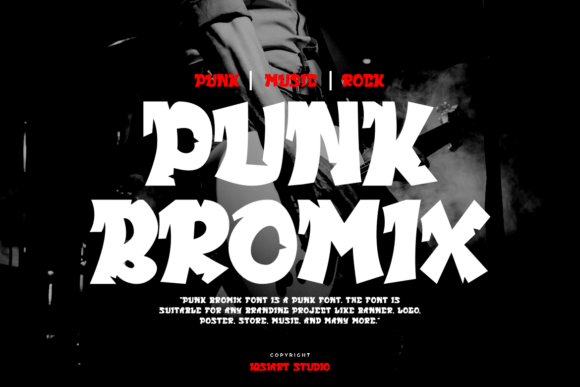
Punk Bromix Font: Unleashing Raw Energy and Wild Style
In the realm of typography, few fonts capture the essence of rebellion and unfiltered attitude as effectively as the Punk Bromix Font. Designed to embody the spirit of punk culture, this typeface is characterized by its jagged edges and bold, rebellious forms. It’s a font that screams to be noticed, making it an ideal choice for punk-themed projects, music posters, and edgy streetwear branding.
The Essence of Punk Bromix
Punk Bromix is more than just a font; it’s a statement. It’s a reflection of the underground culture that thrives on raw energy, defiance, and a dash of chaos. This typeface is meticulously crafted to convey a sense of urgency and rebellion, resonating with designers and audiences who are drawn to the unapologetic and the bold.
An example of Punk Bromix in use, showcasing its bold and jagged edges.
Design Characteristics
The Punk Bromix Font is distinguished by several key design characteristics:
- Jagged Edges: The font’s edges are intentionally rough and jagged, giving it a DIY aesthetic reminiscent of punk’s anti-establishment ethos.
- Bold and Rebellious Forms: The letters are thick and imposing, exuding a sense of strength and defiance.
- Underground Culture: The font is deeply rooted in the punk and street culture, making it perfect for projects that aim to capture this vibe.
Applications of Punk Bromix
Given its unique characteristics, Punk Bromix finds its application in various creative projects:
- Punk-Themed Projects: Whether it’s a logo for a punk band, a flyer for a music event, or branding for a punk clothing line, this font is tailor-made for projects that celebrate the punk ethos.
- Music Posters: The bold and attention-grabbing nature of Punk Bromix makes it an excellent choice for music posters, especially for concerts and festivals with a punk or alternative lineup.
- Edgy Streetwear Branding: For brands looking to make a bold statement and appeal to a demographic that values individuality and rebellion, Punk Bromix can be a powerful tool.
Why Choose Punk Bromix?
In a sea of fonts that play it safe, Punk Bromix stands out for several reasons:
- Uniqueness: Its distinctive look ensures that your project won’t blend in; it’ll stand out with a bold statement.
- Attitude: The font embodies the attitude and spirit of punk culture, allowing designers to infuse their work with an unfiltered edge.
- Versatility: While highly specialized, Punk Bromix can be adapted across various mediums, from digital platforms to print.
Tips for Using Punk Bromix Effectively
To maximize the impact of Punk Bromix, consider the following tips:
- Pair with Contrasts: Combine Punk Bromix with simpler fonts to create visual contrast and hierarchy in your design.
- Use Bold Colors: The font’s bold nature pairs well with vibrant and bold colors often associated with punk culture.
- Experiment with Textures: Adding textures or gradients can enhance the font’s jagged, raw feel, adding another layer of depth to your design.
Punk Bromix Font is a powerful tool for designers looking to inject their projects with the raw energy and wild style of punk culture. Its bold, rebellious forms and jagged edges make it a perfect fit for punk-themed projects, music posters, and edgy streetwear branding. By choosing Punk Bromix, designers can ensure their work stands out, resonates with the right audience, and turns up the volume on their visuals.